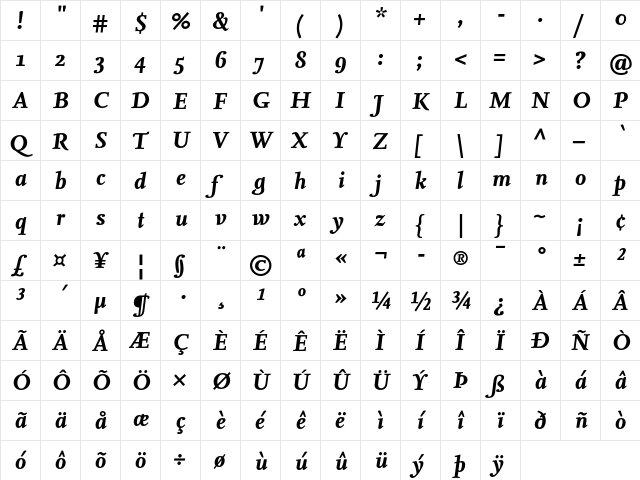
NexusSerif-BoldItalic Regular
Design Context for NexusSerif-BoldItalic Typeface
NexusSerif-BoldItalic carries the refined structure of traditional serif typography, with bracketed terminals and considered proportions that communicate credibility and craft. The slanted form adds forward momentum and visual energy. Its bold stroke weight gives it real presence on the page.
Pro Tip: Set NexusSerif-BoldItalic with slightly loose tracking in headlines to let each letterform's detail read clearly at display sizes.